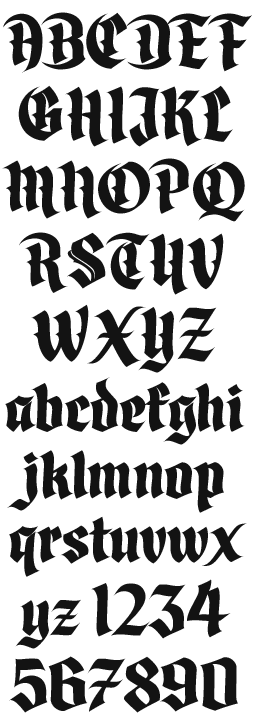
LHF Divine Classic blackletter style from Dave Correll. Unlike other tired and overused blackletters, Divine has a hand lettered personality that keeps it from being too stiff.